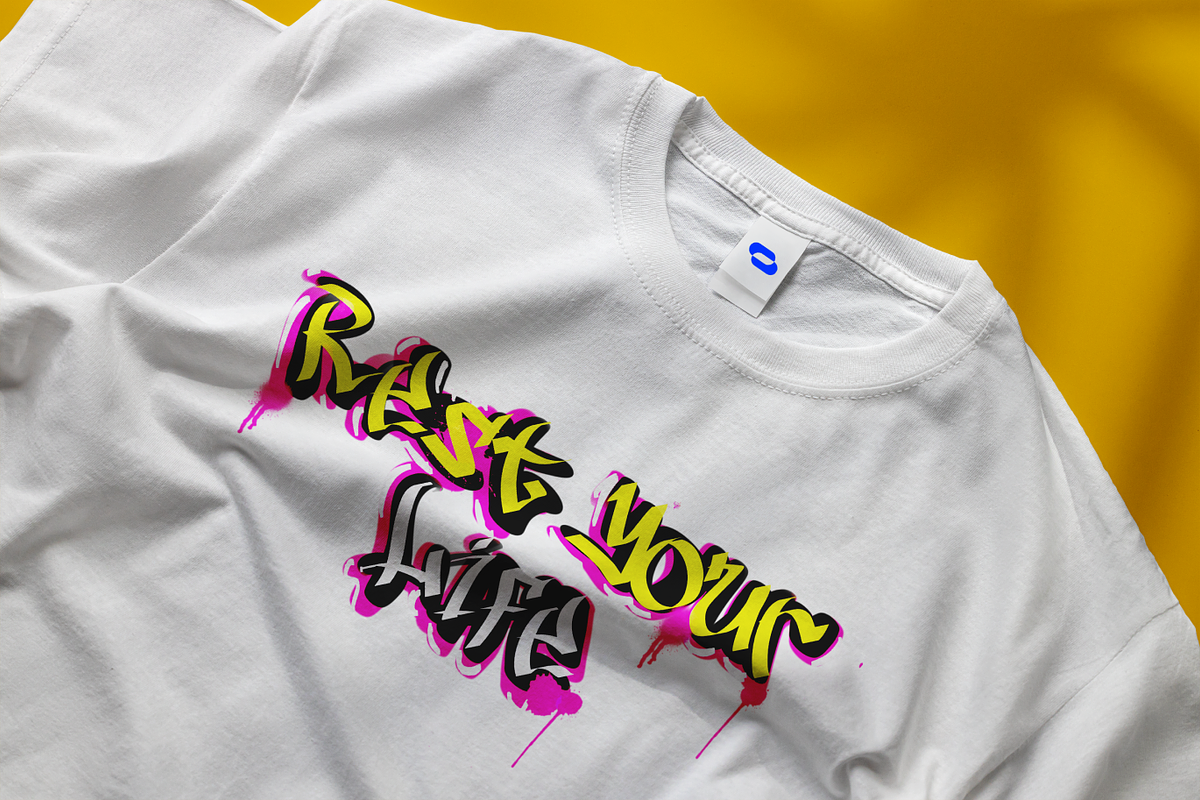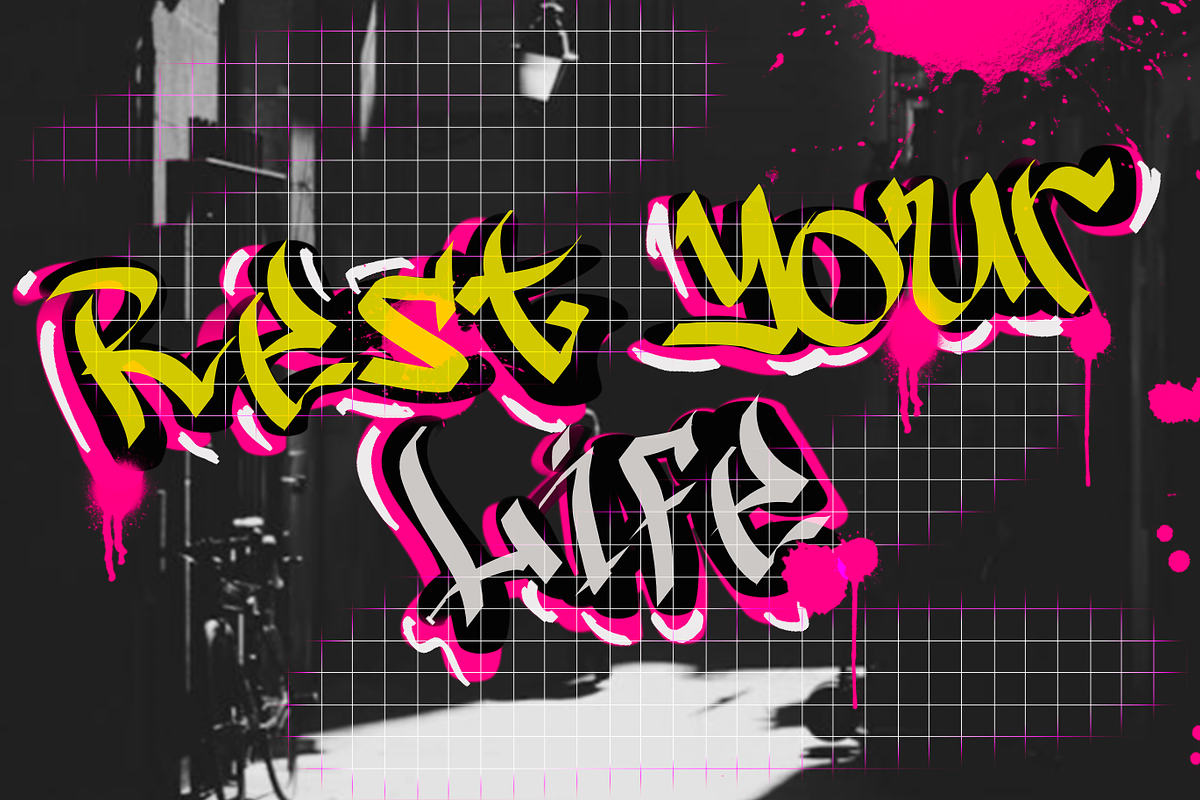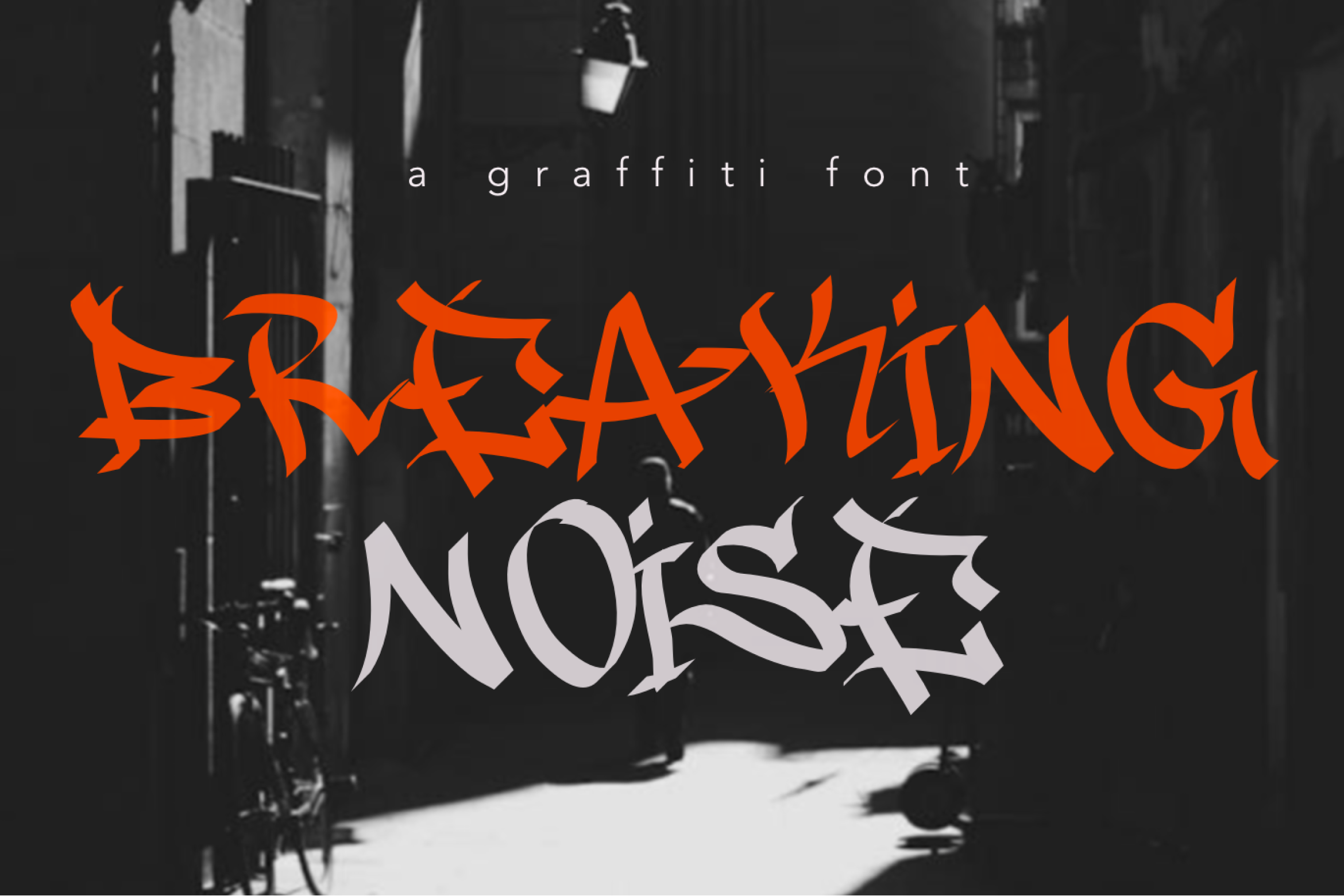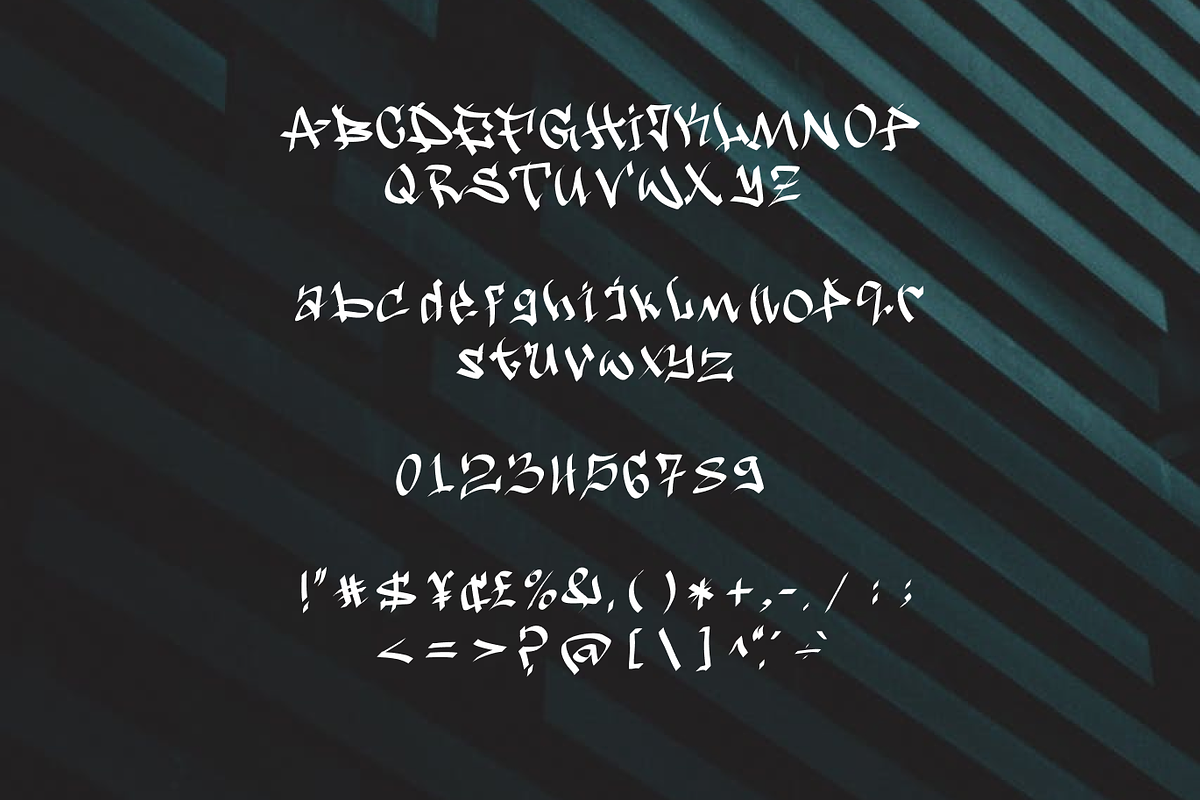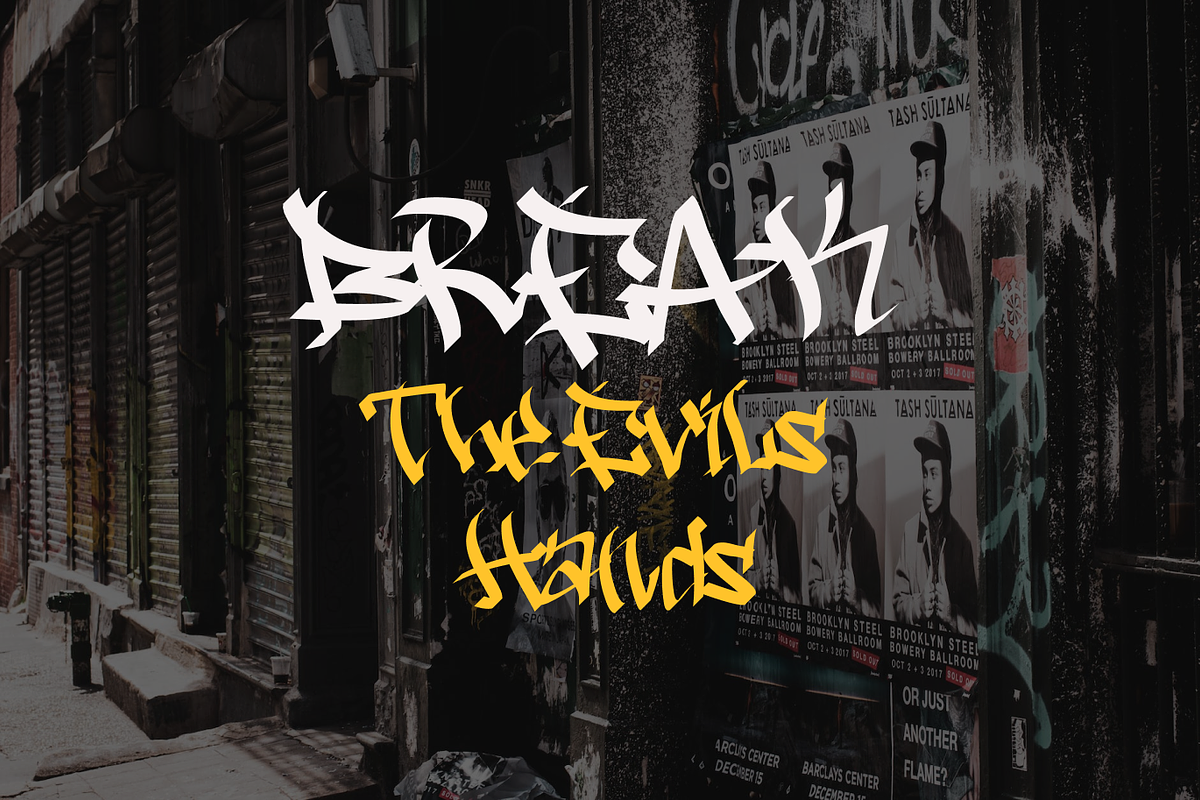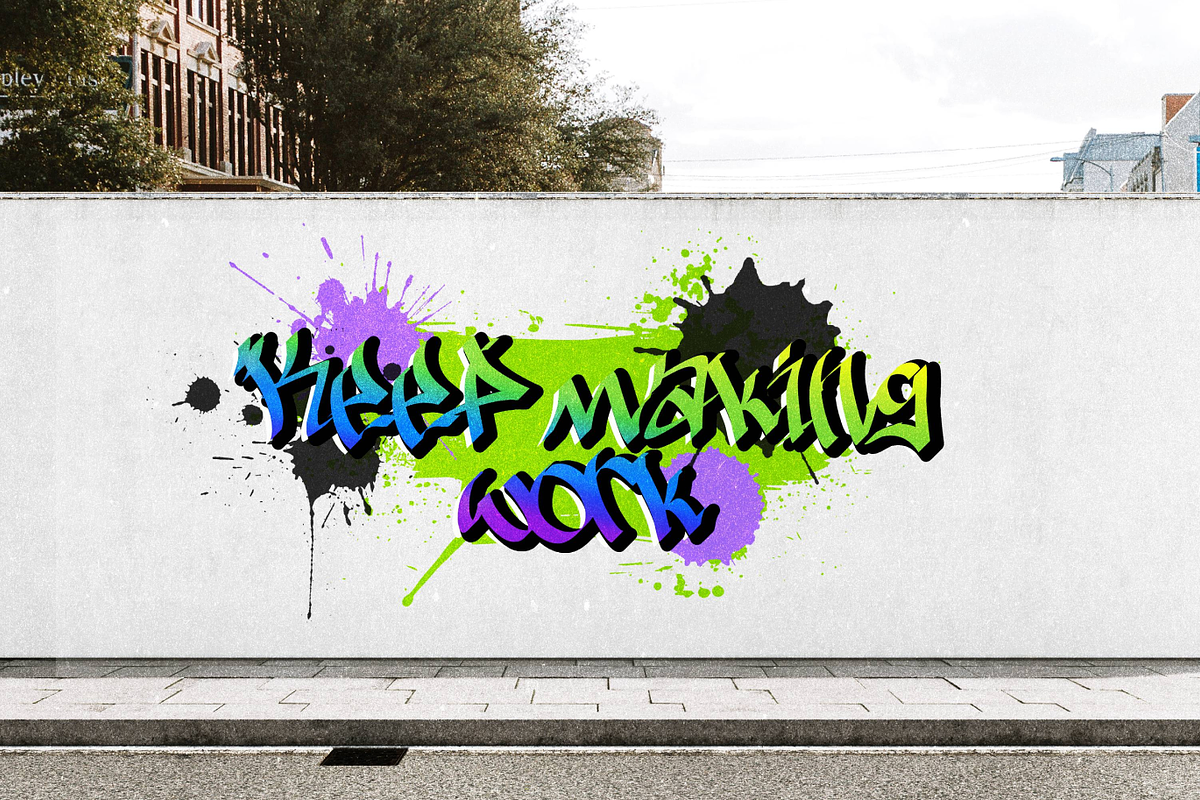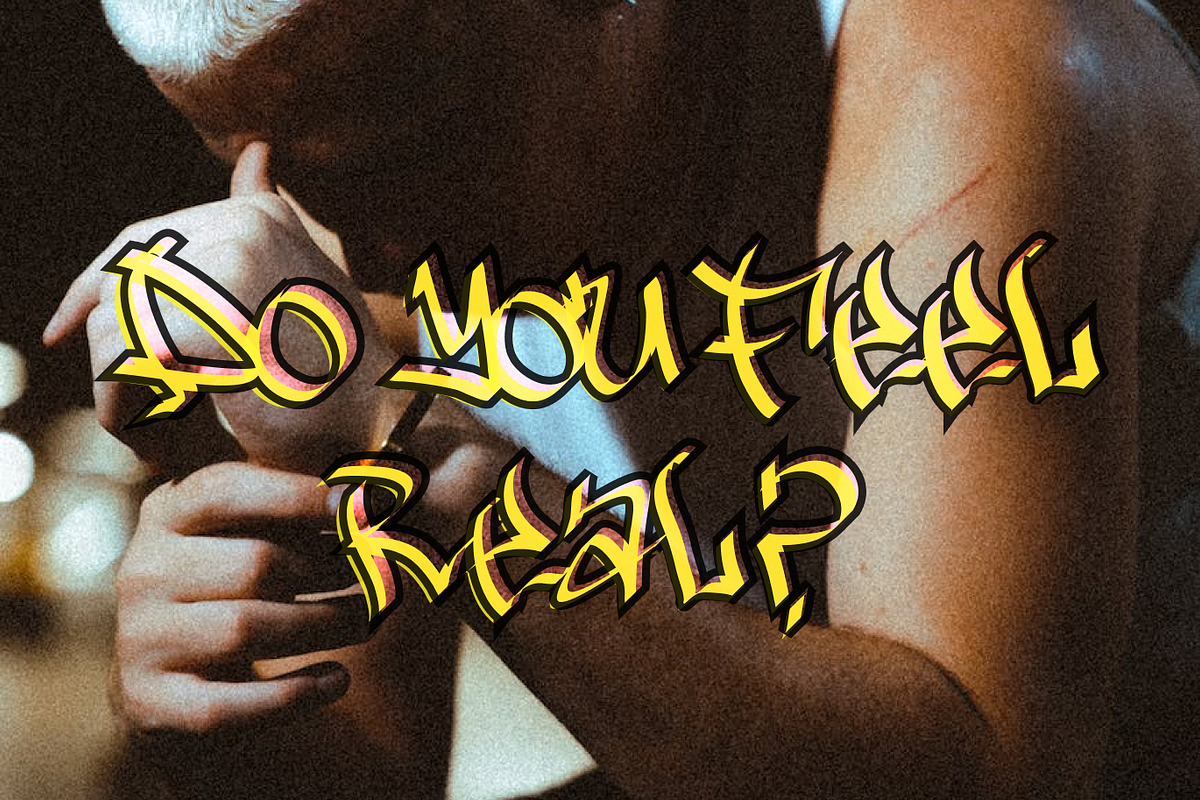
Breaking Noise - Graffiti Font
Breaking Noise is a graffiti font that is suitable for street image products, teens, fun, dark, heroes, strong, indie scene, bold, strong, youth, and rebel characteristic design images. You can use this font for postcards, social media, billboards, graffiti design styles, food brands, posters, stickers, labels, etc.